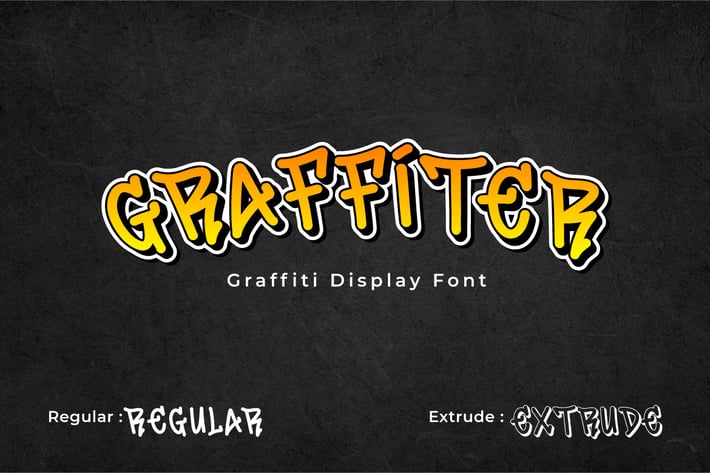
Graffiter - Graffiti Display Font
Hello! looking for a font with street art style? Graffiter is here!
Graffiter can be used in any works such as logo, wall art, apparel branding, team logo and many more.